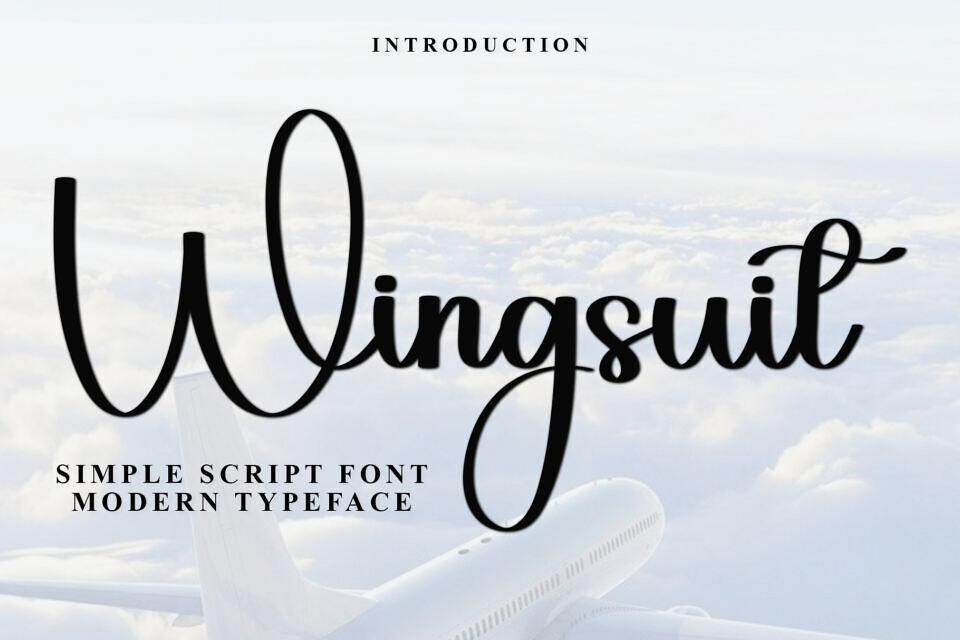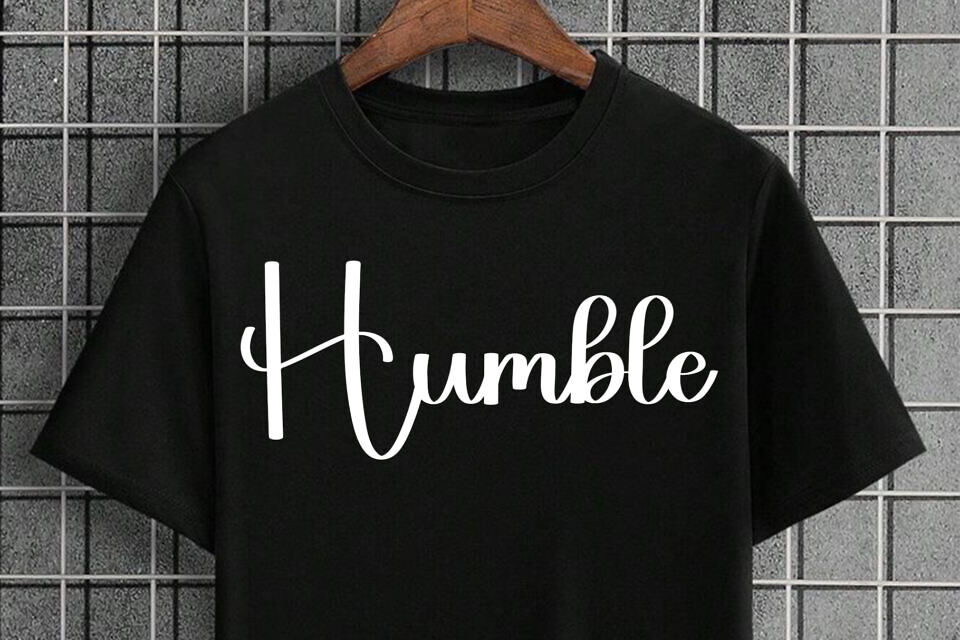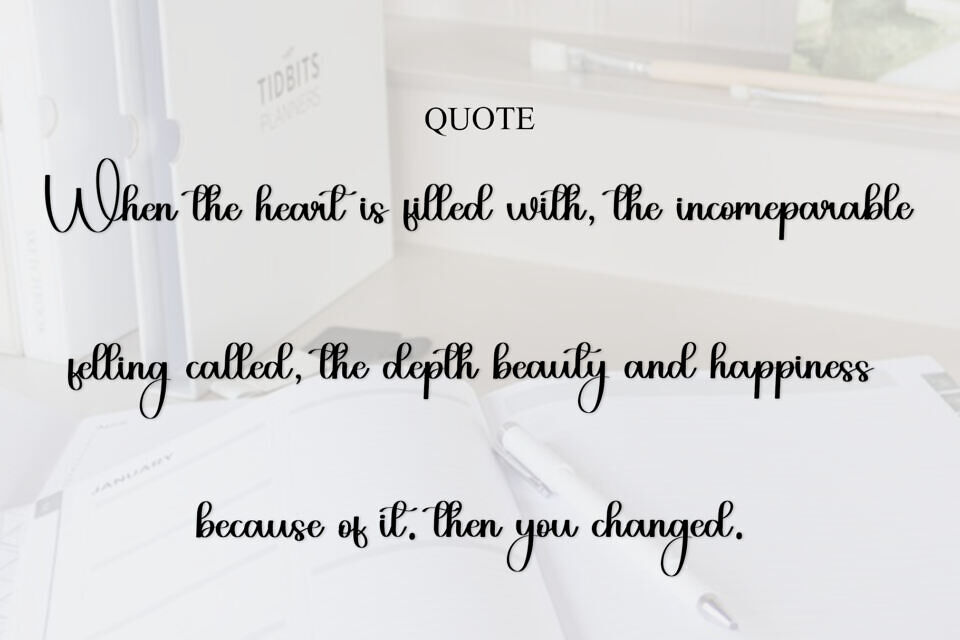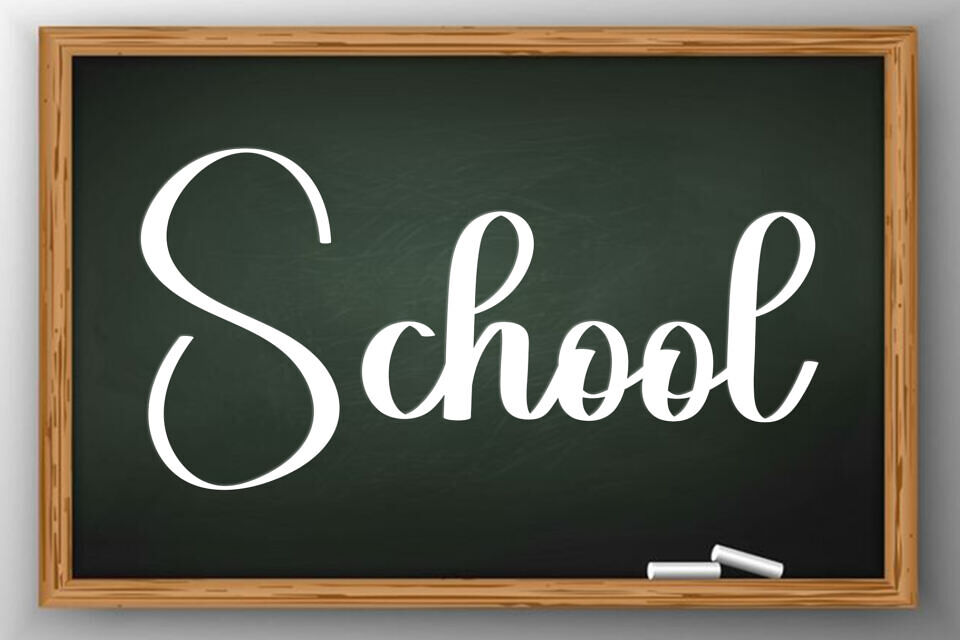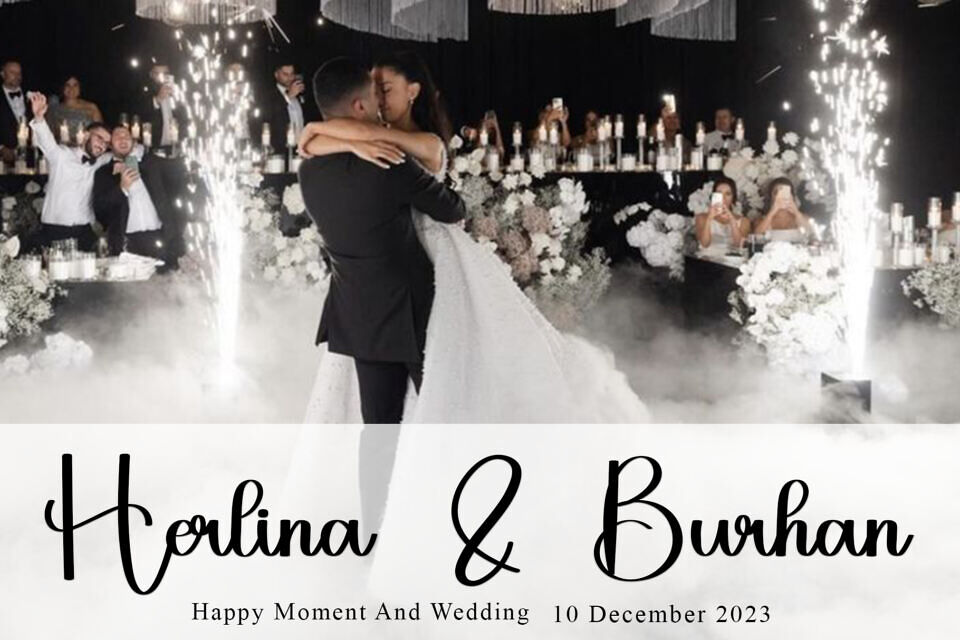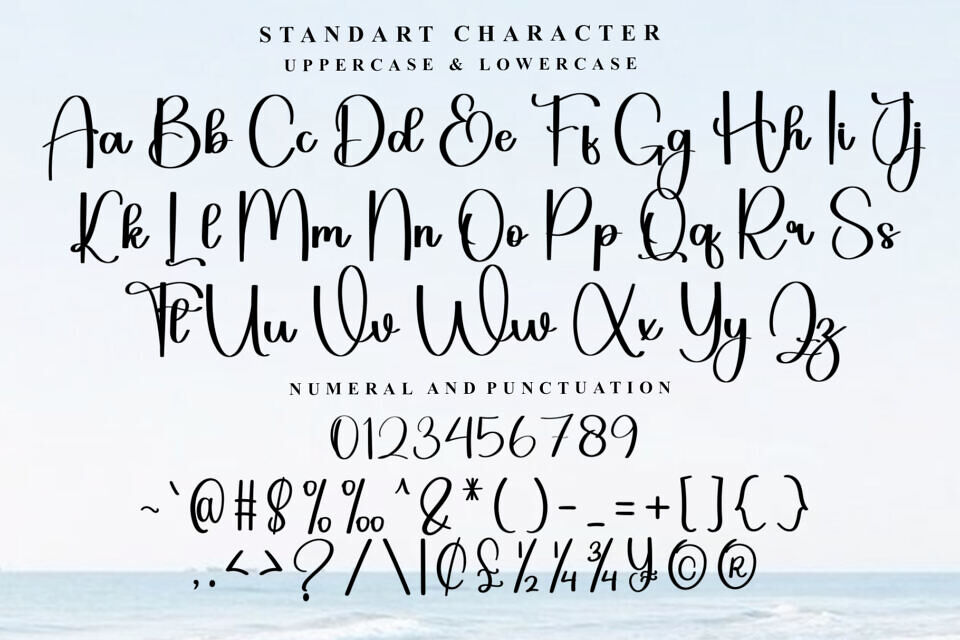
Wingsuit is a stylish handwritten script font designed by FreshTypeINK. Featuring 108 glyphs and 173 characters, Wingsuit is perfect for crafting personal-use designs like invitations, branding mockups, or social graphics. With its elegant flow and hand-drawn charm, Wingsuit adds a warm, creative touch to your projects.